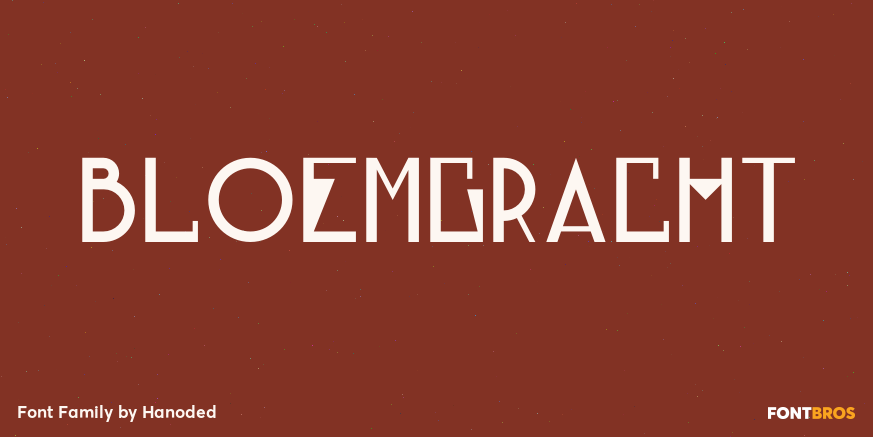
Bloemgracht
About Bloemgracht
In the old Amsterdam neighborhood of \’De Jordaan\’, you will find a canal called Bloemgracht (Flower Canal). For many years, a coffee store called Schildmeijer could be found here. Their paper coffee bags and advertisements sported a hand made font which…